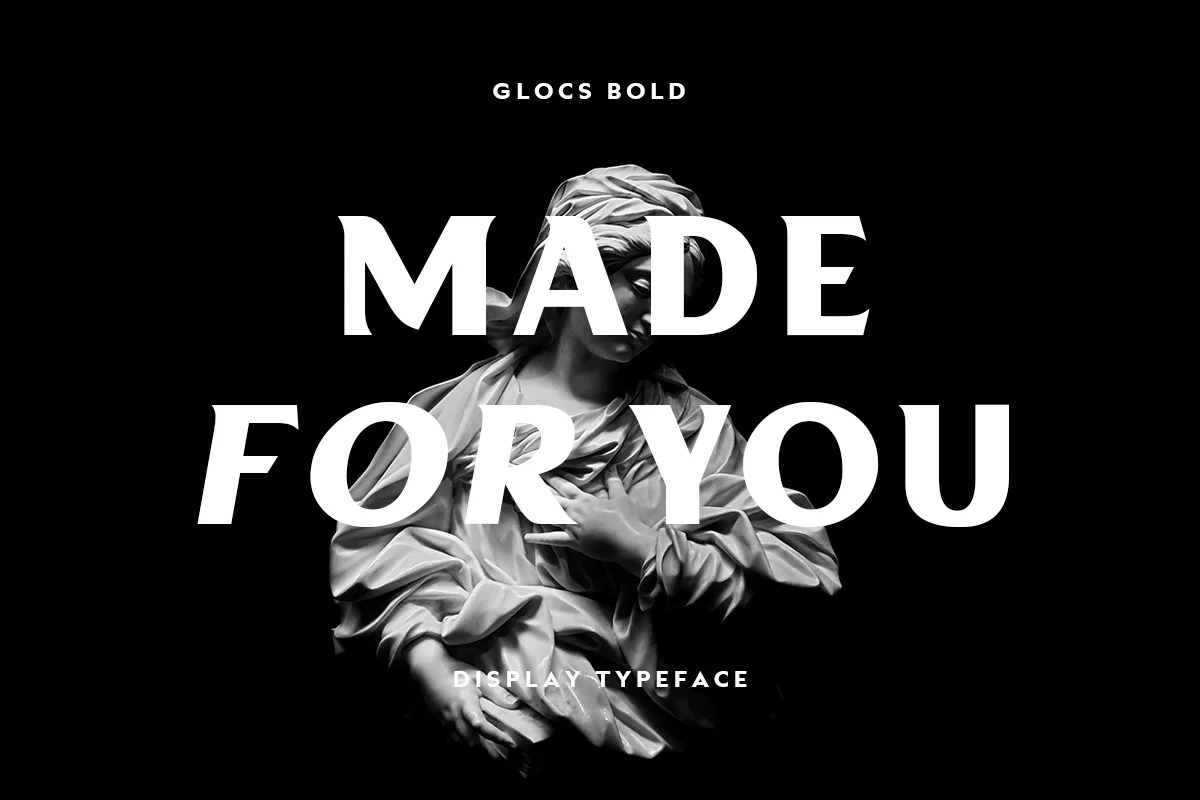
Glocs Sans Serif Font
This is a beautiful bold sans serif font crafted & designed by Yukita Creative. Inspired by the beauty of nature. The font looks beautiful and vintage. So if you’re looking to make a statement with your work, then this is the font for you!
Glocs is the perfect font for those who appreciate vintage style with a modern touch. It’s perfect for creating unique and stylish designs for t-shirts, logos, badges, and more.